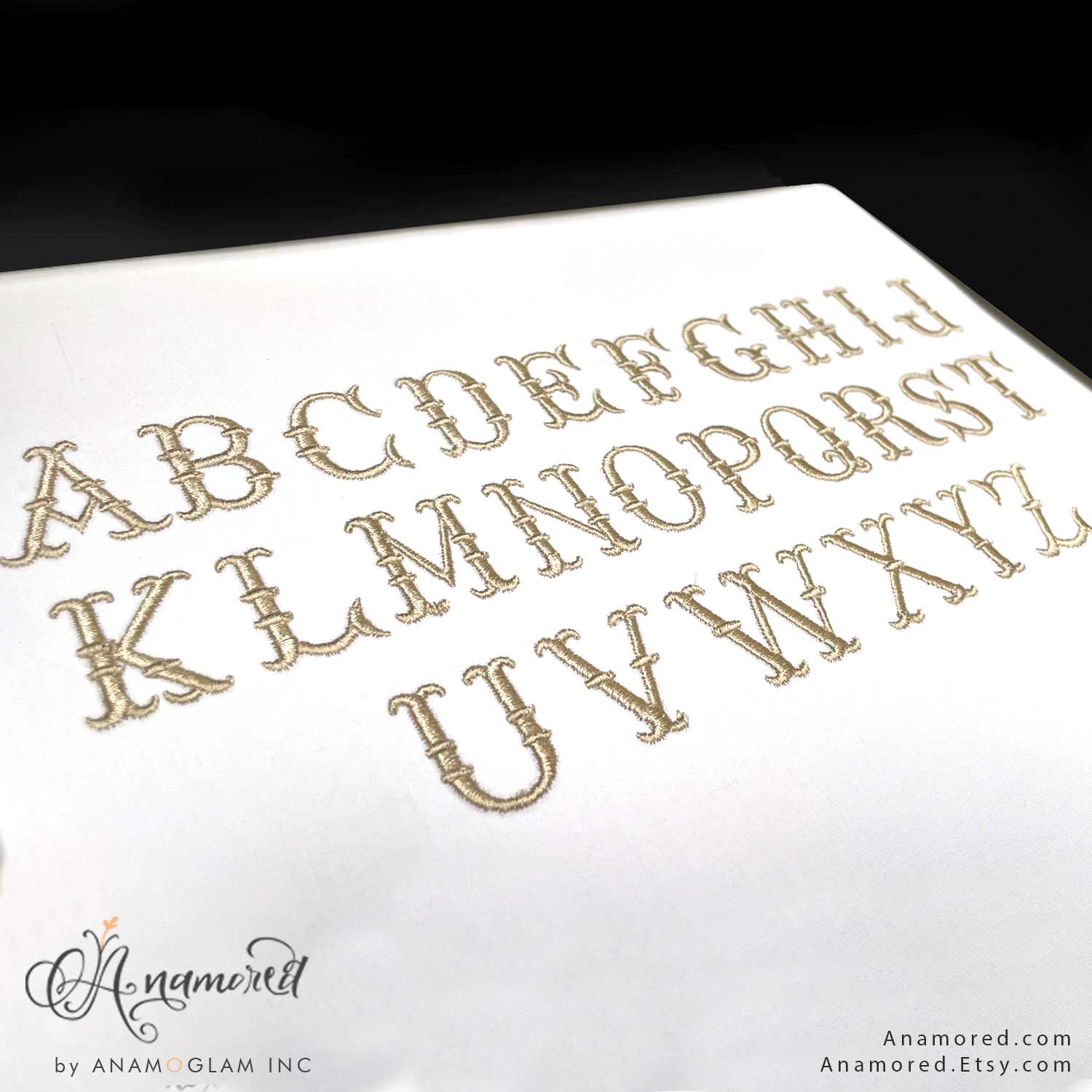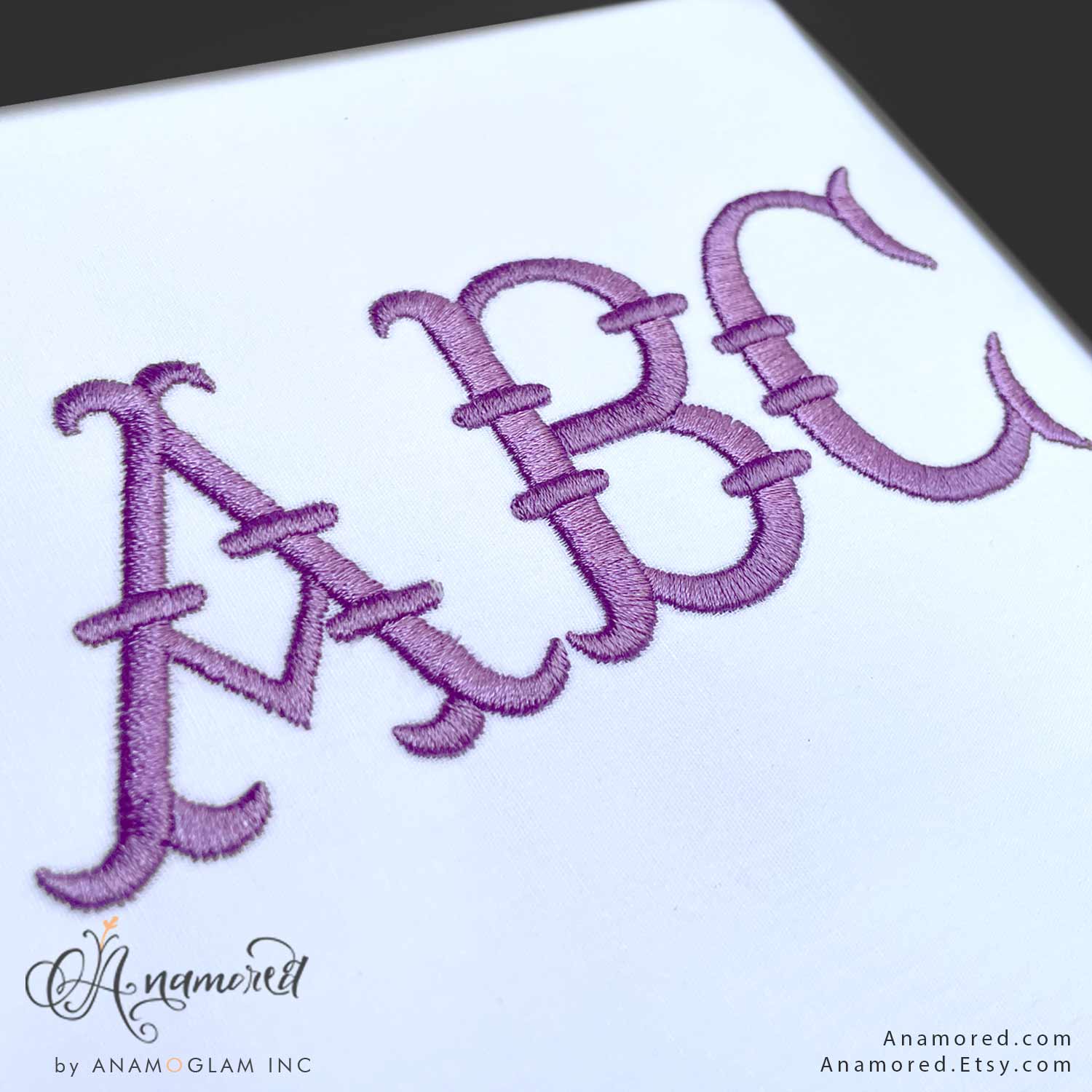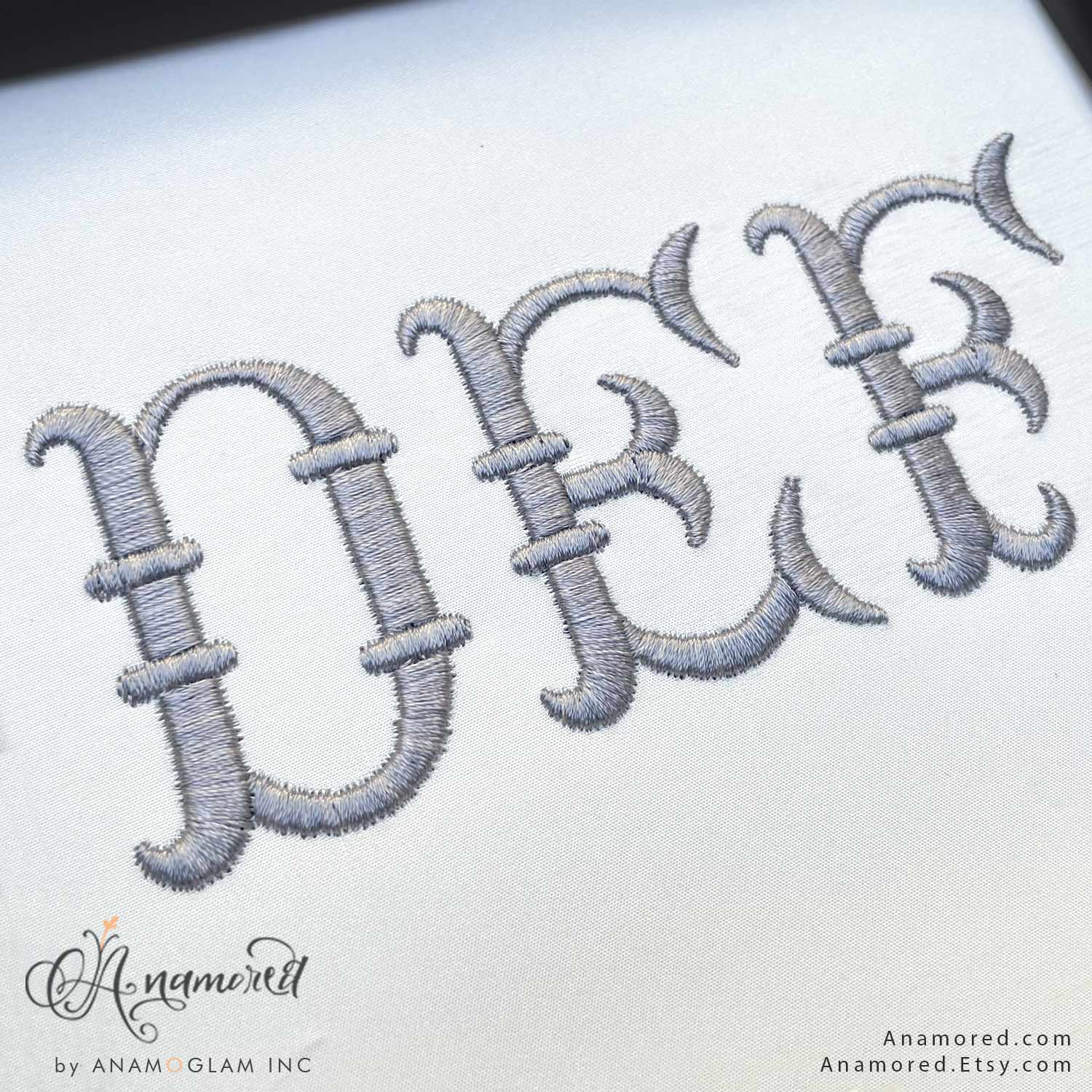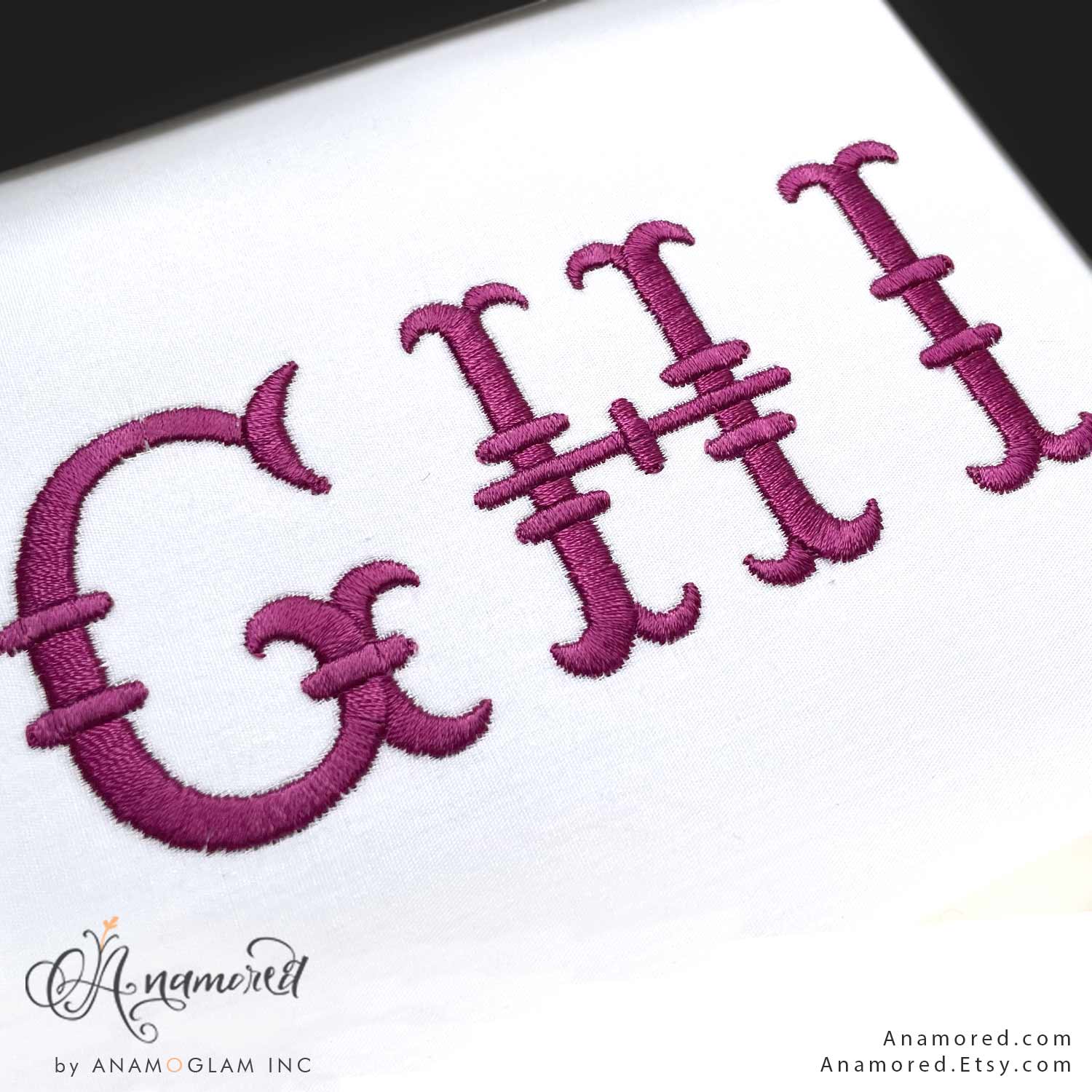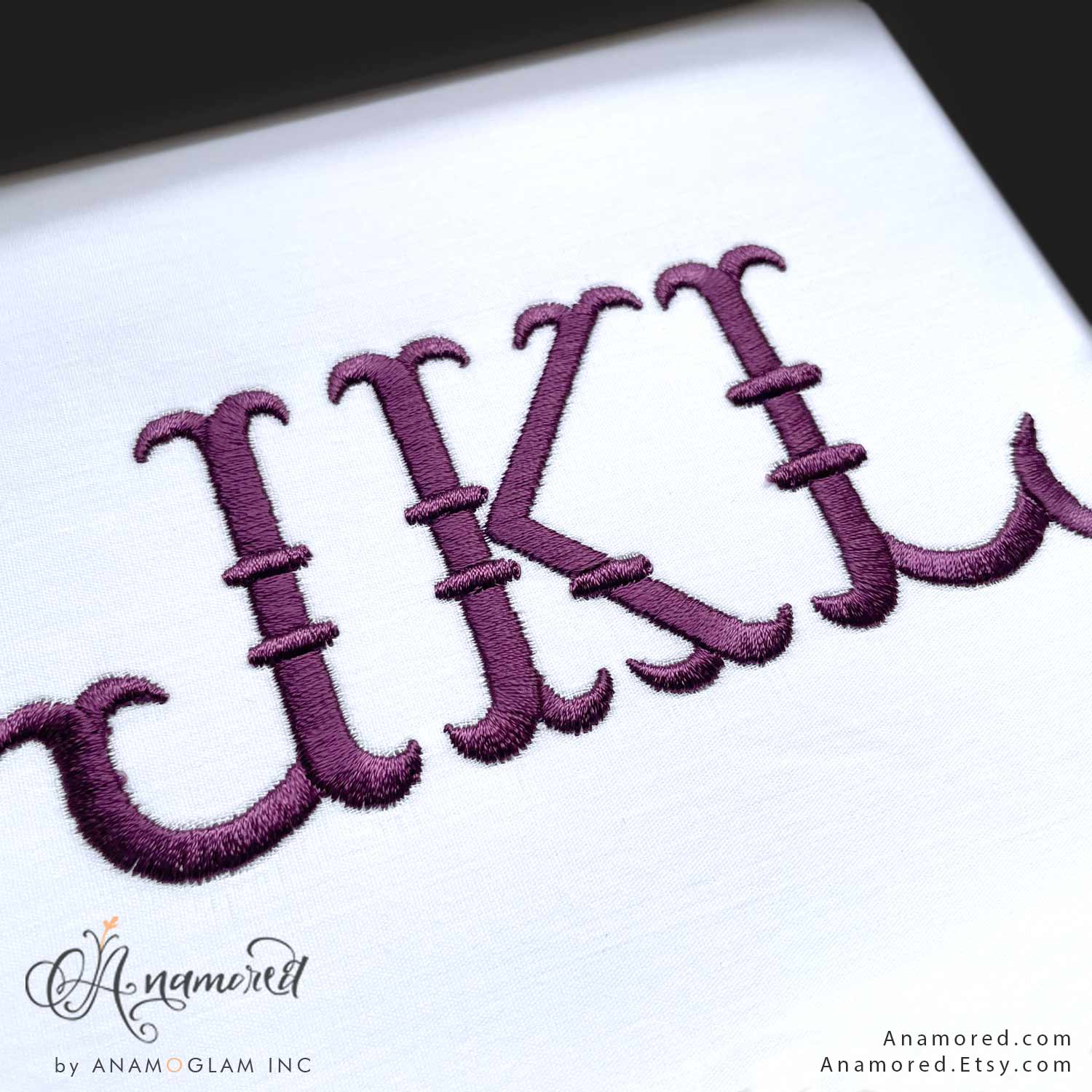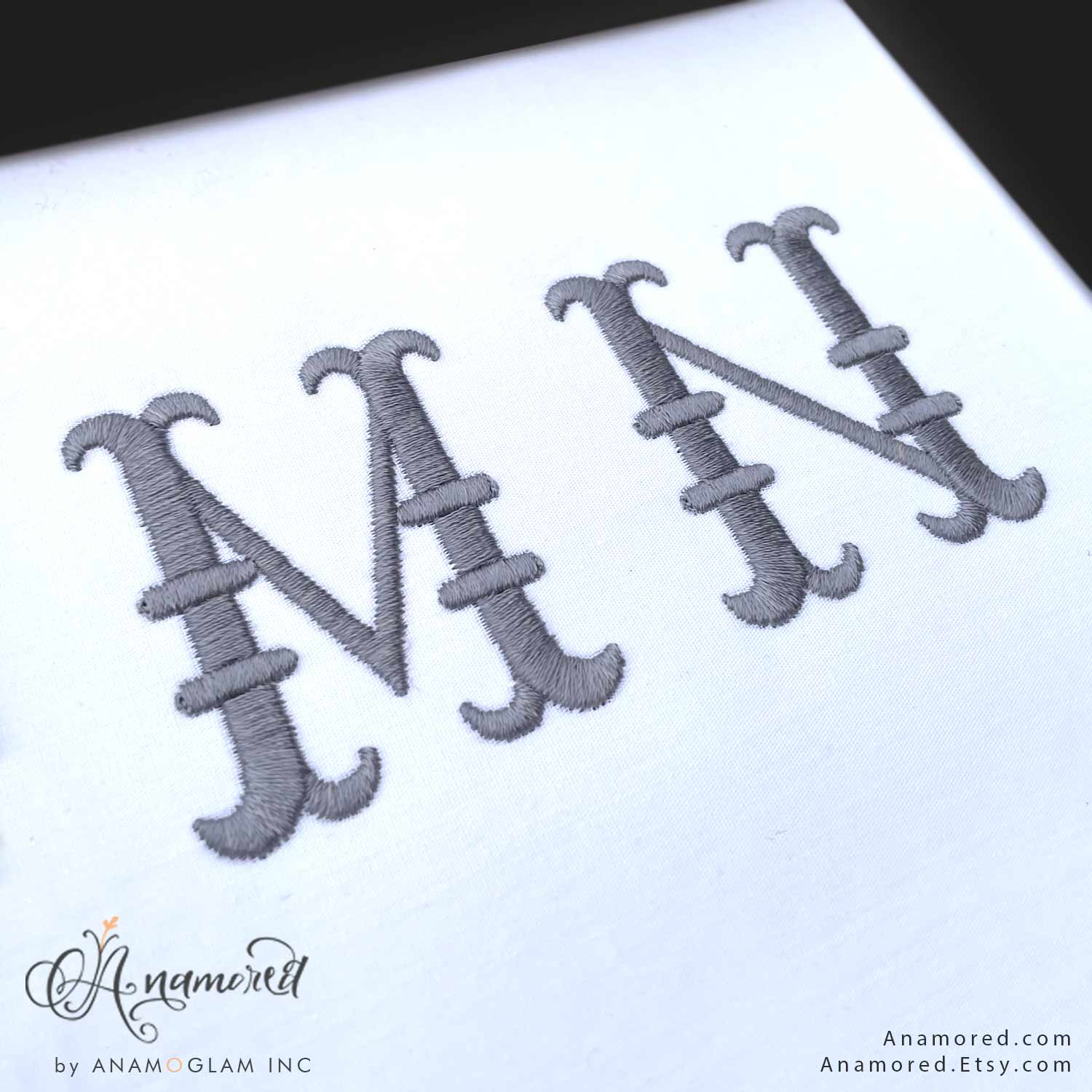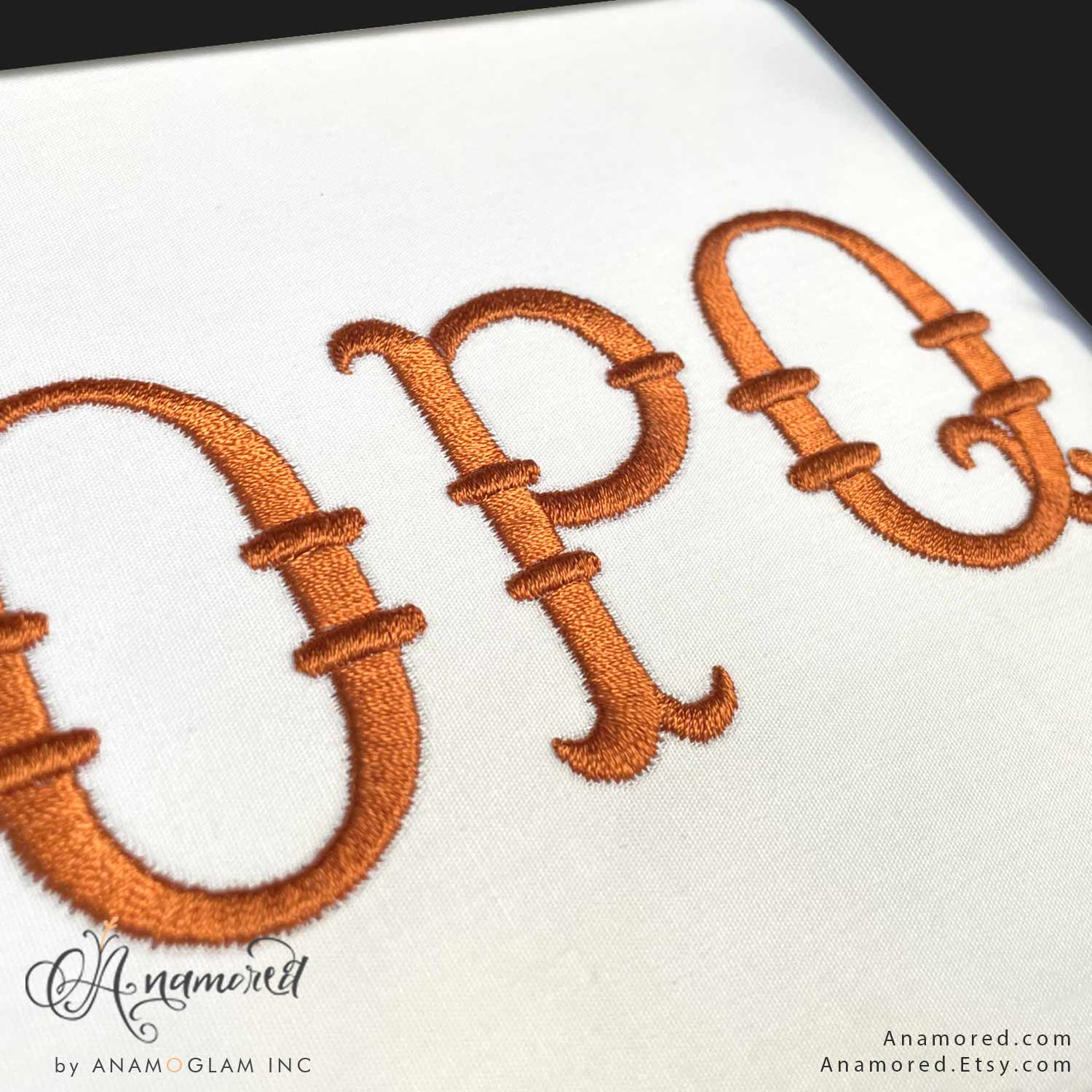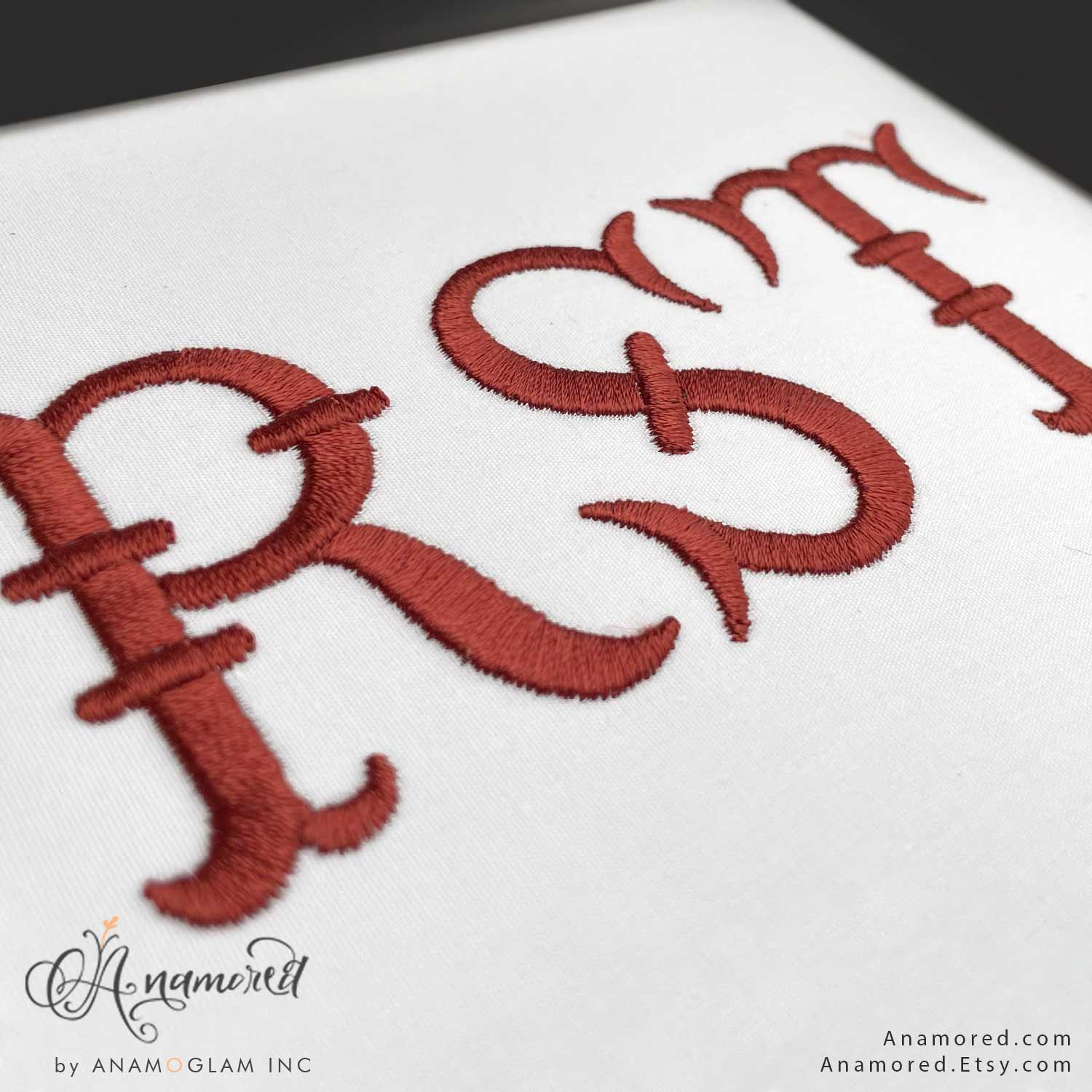
2 sizes (1 and 2 inch) Small French Fishtail Monogram Embroidery Font
Satin stitch.
French Fishtail Embroidery Monogram Alphabet
Great for athletic designs too.
Satin stitch.